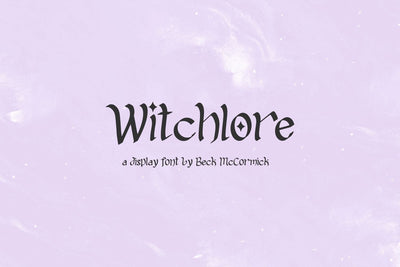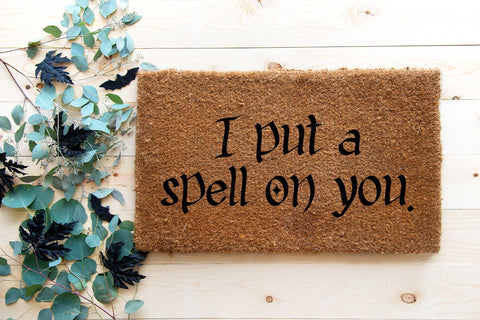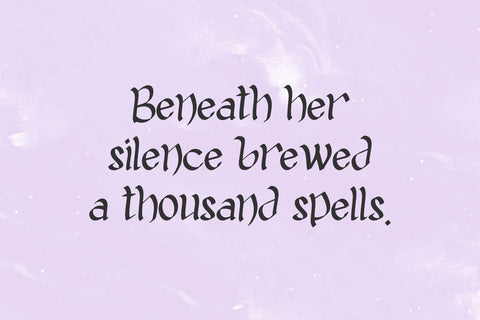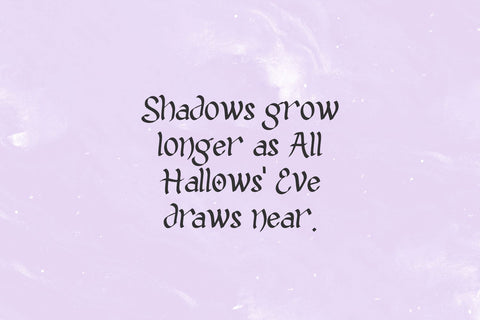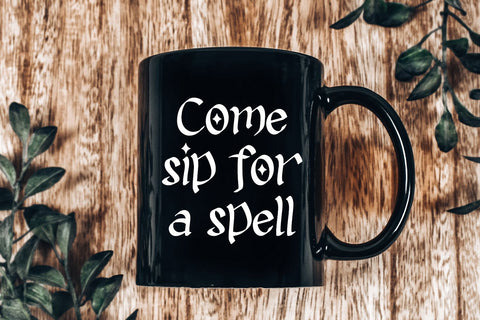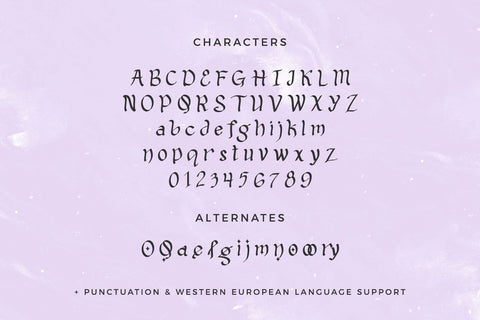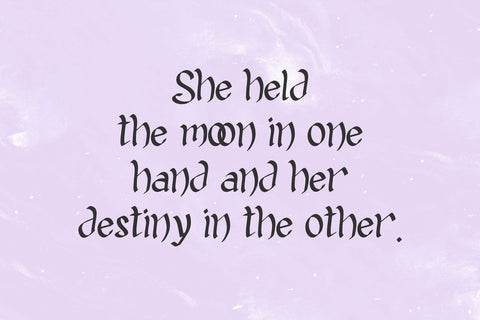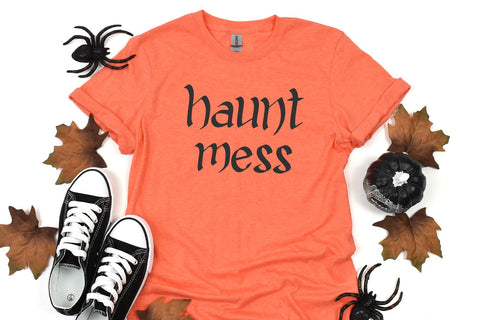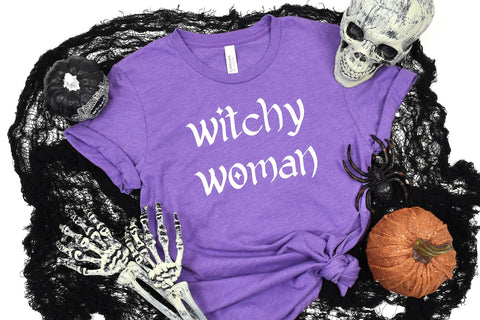
Witchlore Display Font
Introducing Witchlore, a witchy display font. Witchlore is a fantastic fit for your tarot designs, as well as anything magic, witch, or celestial. This font is well-suited for Halloween crafting projects with your Cricut or Silhouette machine, and can be used for things like shirts, signs, labels, marketing materials, social media, SVG designs, greeting cards & other print items, and even spooky logos & branding. Witchlore has some starry alternate characters, as well as other flourished characters.
Witchlore includes:
- full upper + lowercase characters
- numbers + punctuation
- 11 alternates, 2 ligatures
- Western European language support - English, French, Spanish, Portuguese (Brazil), Portuguese (Portugal), Italian, German (Germany), German (Austria), Dutch, Danish, Swedish, Norwegian (Bokmål and Nynorsk), Finnish, Icelandic, Irish, Welsh